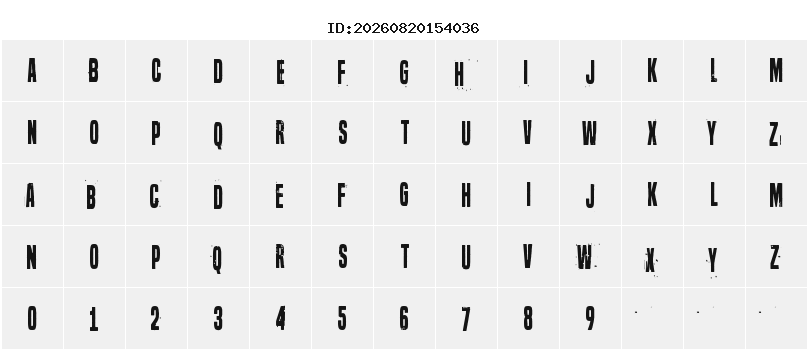
Seven deadly sins Preview
• Font Name: Seven deadly sins
• Full Font Name: Seven deadly sins
About Seven deadly sins.ttf
Seven deadly sins.ttf is a modern, elegant sans-serif font designed for ultimate readability and visual harmony. Perfect for branding, headlines, web design, and print materials.